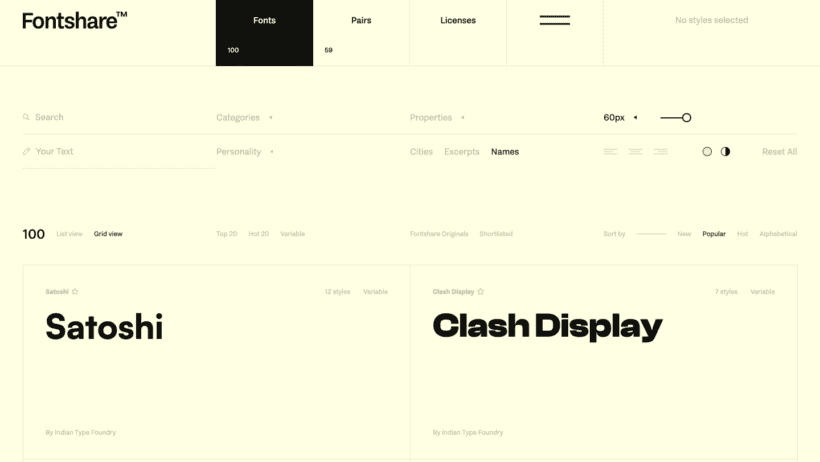
100 Curated Typefaces for Designers, Boost Brand Impact and Readability
Fontshare offers 100 crafted, free typefaces, variable fonts and curated pairs, perfect for designers on any budget.
Curator Pick: 100 Quality Typefaces to Elevate Your Brand
As a branding curator, I recommend this collection for designers who demand craft and flexibility. Fontshare delivers one hundred quality typefaces, variable fonts, and curated pairings, all available at no cost. The Indian Type Foundry designed many families in-house, ensuring typographic rigour and thoughtful details. Satoshi is a standout, offering geometric clarity in ten styles plus a variable axis for responsive needs. Fontshare’s licence removes friction, permitting personal and commercial use across print, digital, and broadcast work. This reduces legal risk, while raising visual quality for brands with tight budgets. Bookmark it, explore specimens, and test pairs before committing today.
The interface mirrors typographic care, with a live size slider, specimen modes, and user text previews. Explore the Pairs section, it offers 59 curated combinations rendered as real editorial layouts. Clash Display shows bold contrast at display sizes, while General Sans proves clarity at body text. Variable fonts reduce asset bloat, they provide continuous weight control for responsive systems. The ITF Free Font License removes ambiguity, permitting commercial use across print, digital, and broadcast work. Bookmark Fontshare, test pairs, and adopt typefaces that elevate brand rhythm and legibility. Read the full story for screenshots, download advice, and practical pairing inspiration.